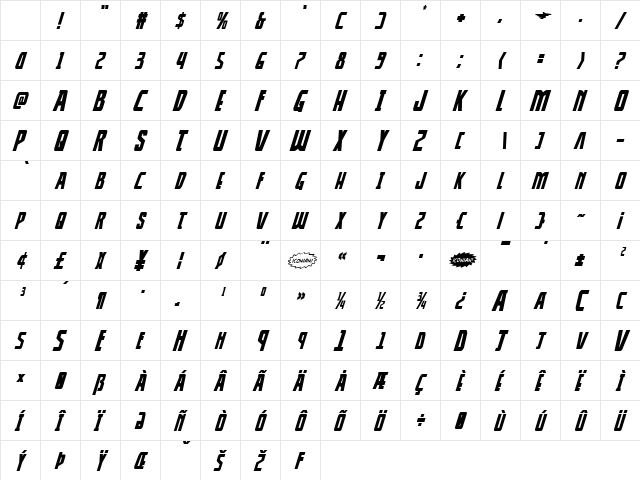
Complete Thunder-Hawk Italic glyph index. Displaying only characters natively supported by Thunder-Hawk Italic font.
Thunder-Hawk is a composed and adaptable typeface that performs quietly and consistently across a wide range of design contexts. The slanted form adds forward momentum and visual energy.